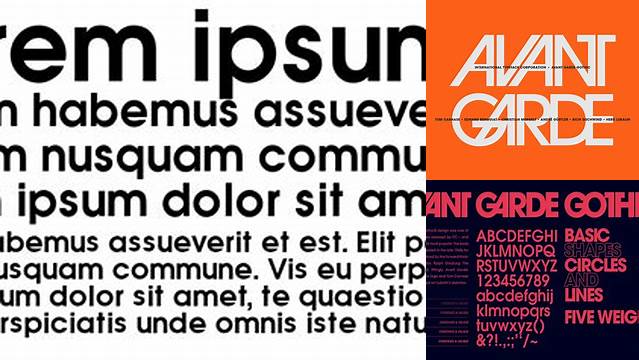
Hey guys! Looking to add a touch of modern sophistication to your designs? You've landed in the right place. We're diving deep into the world of Avant Garde Bold, a font that screams elegance and makes a statement. Plus, we'll show you how to snag it for free on Dafont. Let’s get started!
1. What is Avant Garde Bold Font?
When we talk about Avant Garde Bold font, we're referring to a typeface that's more than just letters; it's a design statement. This font family is celebrated for its clean, geometric forms and its bold weight gives it a striking presence. Originating from the iconic Avant Garde magazine logo, the font has since evolved into a versatile choice for a wide array of design projects. Its unique blend of sharp angles and smooth curves creates a visual harmony that's both modern and timeless. Understanding the origins and characteristics of Avant Garde Bold is crucial for appreciating its impact and how it can elevate your creative work. Whether you're designing a sleek website, a captivating poster, or a sophisticated brand identity, knowing the nuances of this font will help you leverage its strengths effectively. The font's inherent elegance makes it a popular choice for luxury brands, editorial layouts, and any project aiming for a high-end feel. The versatility of Avant Garde Bold extends beyond its aesthetic appeal; it also performs exceptionally well in various media, from print to digital, ensuring your message is conveyed with clarity and style.
2. History and Origins of Avant Garde Font
The history of the Avant Garde font is a fascinating journey through the world of graphic design and typography. It all started in the late 1960s with the iconic Avant Garde magazine, a publication known for its experimental and forward-thinking approach to art and design. Herb Lubalin, a legendary graphic designer, was commissioned to create the magazine's logo, and thus, the seeds of the Avant Garde font were sown. Lubalin's initial design was a striking logotype that captured the essence of the magazine's avant-garde spirit. However, it was Tony Stan who played a crucial role in expanding this logotype into a full-fledged typeface. Together, Lubalin and Stan collaborated to develop a font family that retained the unique characteristics of the original logo while ensuring its versatility for various applications. The Avant Garde font quickly gained popularity, becoming a symbol of modern design and sophistication. Its geometric shapes and clean lines resonated with designers seeking a typeface that could convey a sense of innovation and style. Over the years, the font has undergone various adaptations and interpretations, but its core essence remains unchanged. The Avant Garde font's legacy is a testament to the power of collaboration and the enduring appeal of well-crafted typography. Understanding its history provides valuable context for appreciating its design and how it has influenced the world of visual communication.
3. Key Features of Avant Garde Bold
Let's talk about what makes Avant Garde Bold so special. We're talking about sharp, geometric shapes, clean lines, and a distinctly modern vibe. The bold weight adds to its presence, making it perfect for headlines and titles. When you're working on a design, the features of a font can make or break the final look. Avant Garde Bold is a font that stands out, and here's why. Its design is rooted in geometric shapes, giving it a structured and contemporary feel. The clean lines ensure that the font is legible and visually appealing, even at smaller sizes. But it's the bold weight that truly sets this font apart. The thickness of the strokes adds emphasis and makes the font ideal for headings, titles, and other prominent text elements. This font exudes a sense of strength and confidence, making it an excellent choice for designs that need to make a statement. Another key feature of Avant Garde Bold is its versatility. While it shines in headlines, it can also be used effectively in body text, especially when you want to add a touch of sophistication. It's a font that balances form and function, making it a valuable asset in any designer's toolkit. Understanding these key features will help you leverage Avant Garde Bold to its full potential in your creative projects.
4. Why Choose Avant Garde Bold for Your Projects?
So, why should you pick Avant Garde Bold over the countless other fonts out there? Well, it's all about the impact. This font brings a certain je ne sais quoi to your designs. It screams sophistication, modernity, and a touch of boldness. If you're aiming for a look that's both elegant and eye-catching, this is your go-to. Imagine you're working on a branding project for a high-end fashion brand. Avant Garde Bold is a perfect choice to convey the brand's luxurious and contemporary image. Or, consider designing a poster for an art exhibition. The font's geometric forms and bold presence will capture attention and communicate the event's artistic nature. The key is to understand the message you want to convey and how the font can help you achieve that. Avant Garde Bold is not just about aesthetics; it's about making a statement. Its clean lines and geometric shapes create a sense of order and sophistication, while its bold weight adds emphasis and visual impact. This font can transform a simple design into something truly remarkable. Whether you're a seasoned designer or just starting, incorporating Avant Garde Bold into your projects can elevate your work and help you achieve your creative vision. Its versatility and timeless appeal make it a valuable addition to any font library.